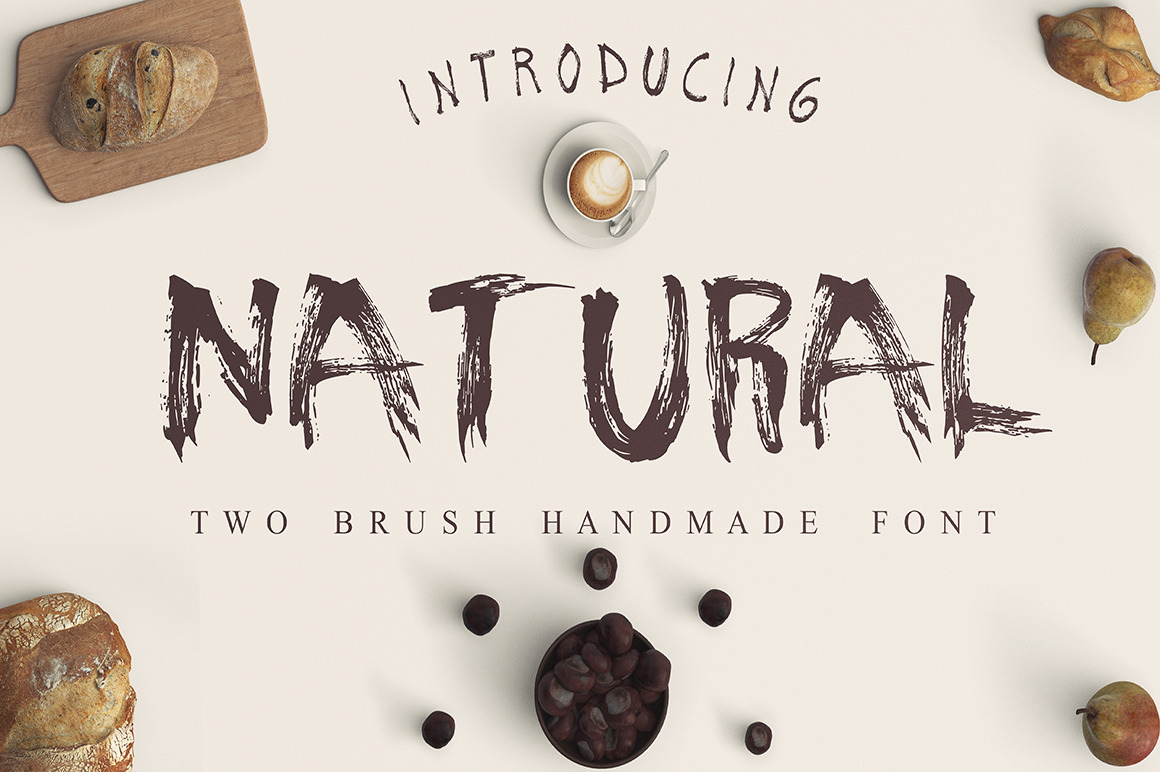
Natural 2 Fonts
Use Enjoy the Ride typeface to make logo marks, posters, T-shirt designs or anything that requires that personal touch
faint brush strokes.
alternative thin capital letters.
2 large fonts compatible with each other.